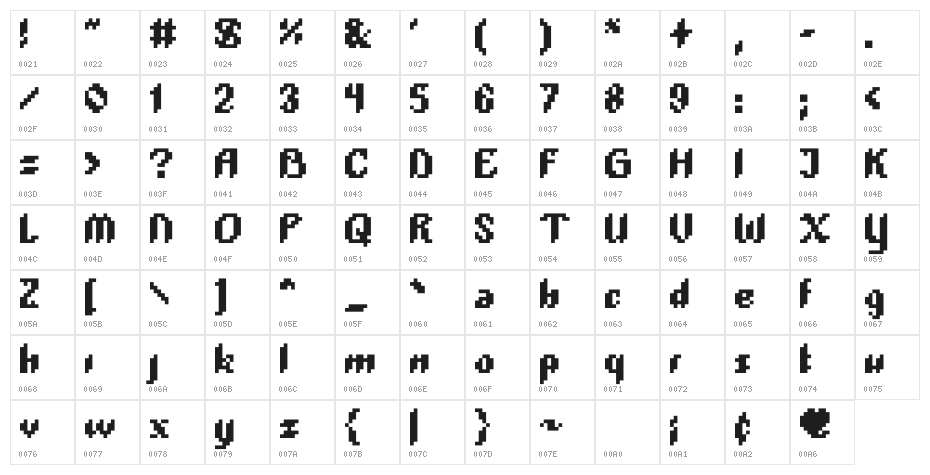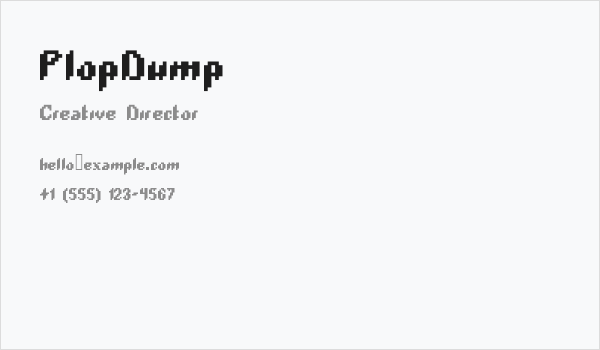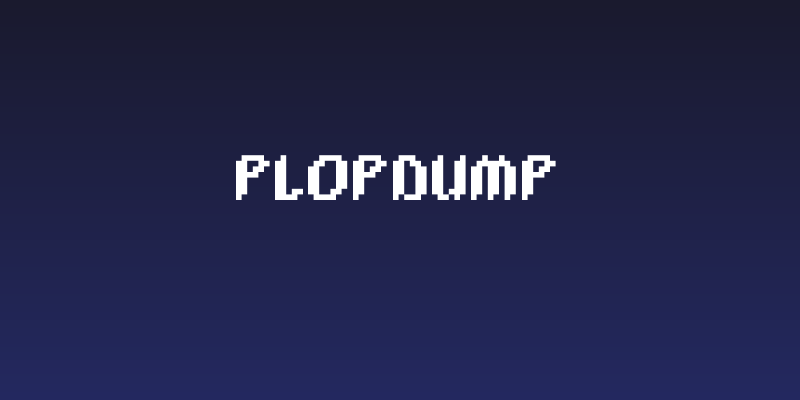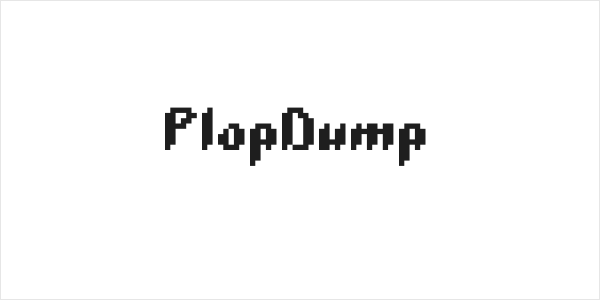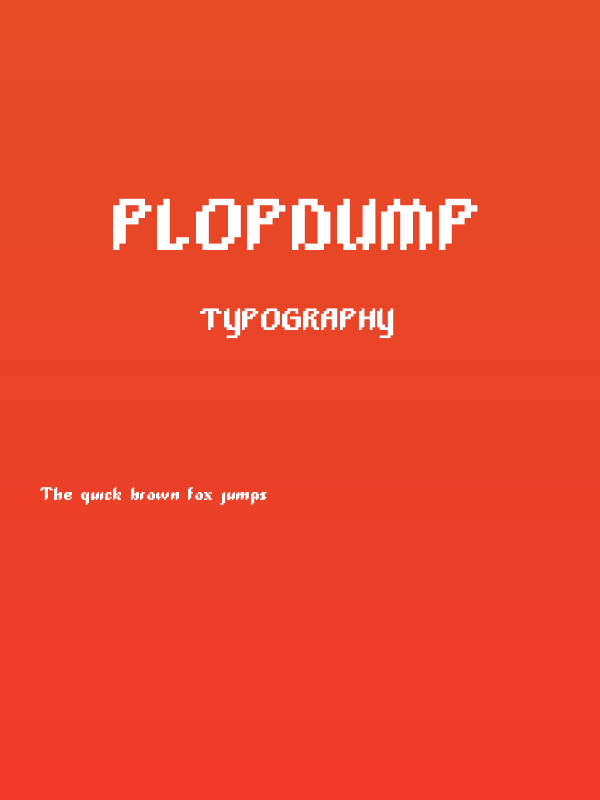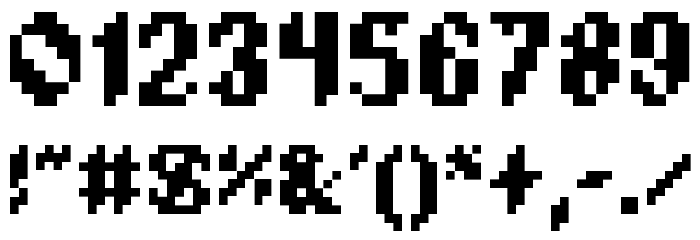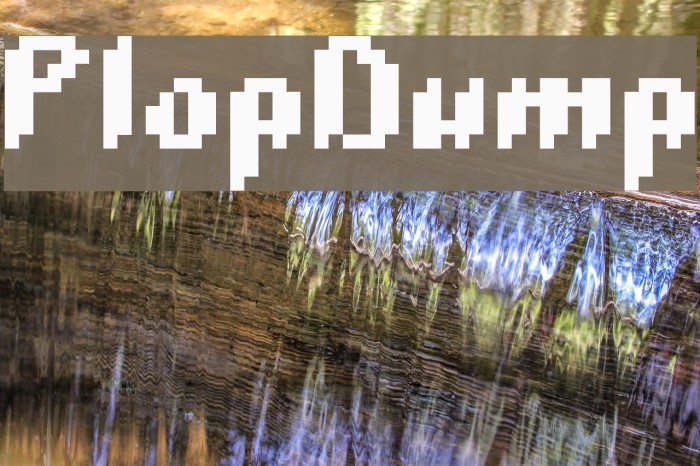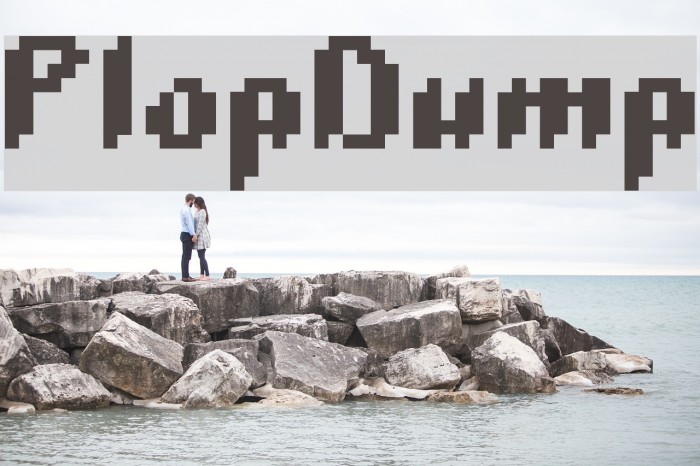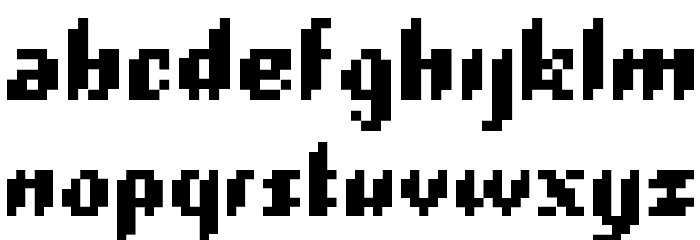
PlopDump Font
PlopDump Description
This font features a bold, pixelated style reminiscent of early digital and arcade aesthetics. The characters are blocky and geometric, with a uniform thickness that gives a cohesive and structured appearance. The uppercase and lowercase letters maintain a consistent height, contributing to a monospaced feel, although the actual spacing between characters varies slightly. The numerals and special characters follow the same pixelated design, ensuring a harmonious look across all glyphs. This font's distinct style makes it ideal for projects that aim to evoke nostalgia or a retro gaming vibe.
| Use Case | Headlines, Logos, Digital Art |
| Proposed Projects | Ideal for retro video games, digital art projects, and nostalgic branding. |